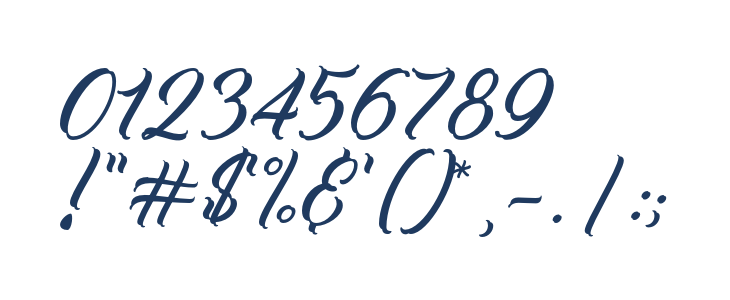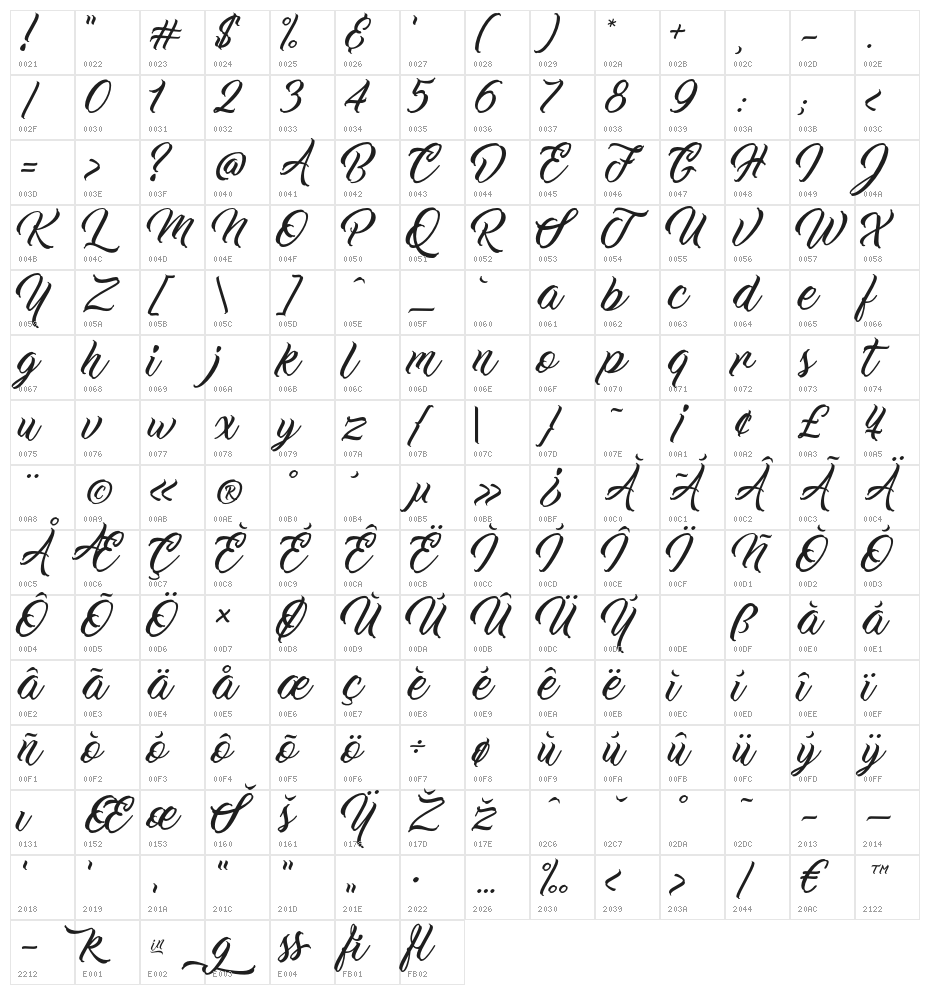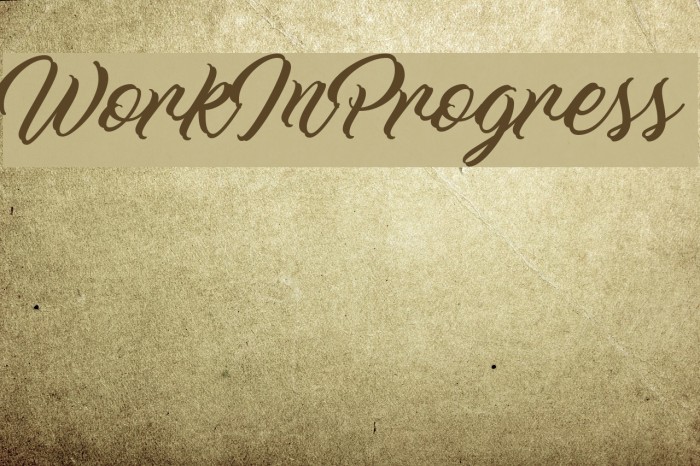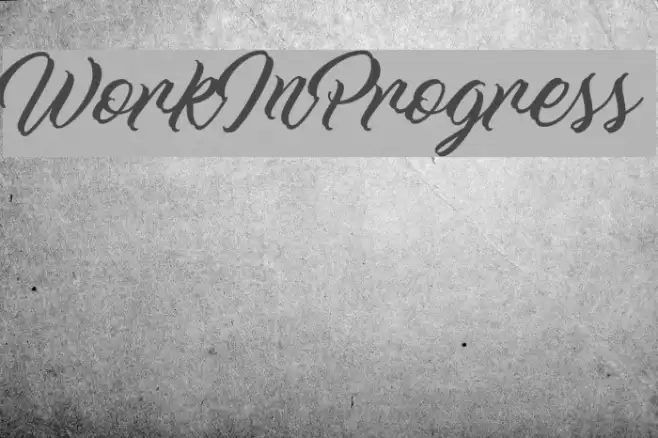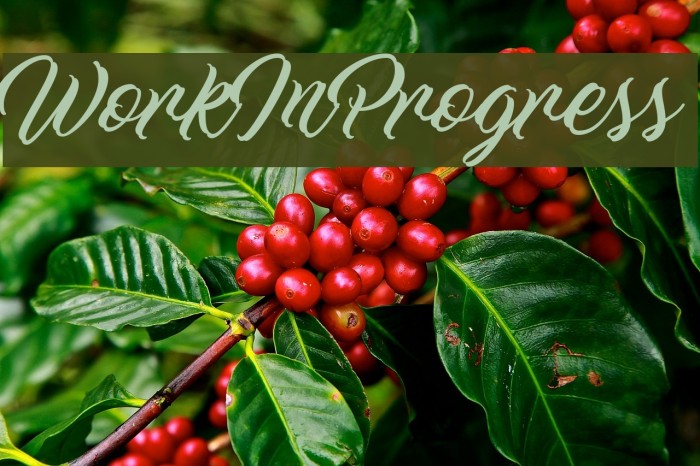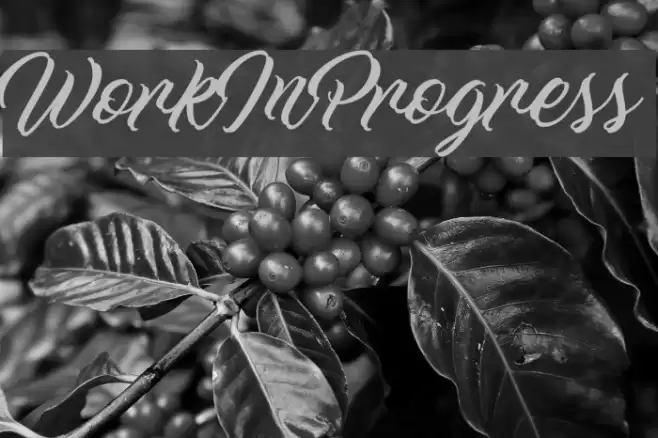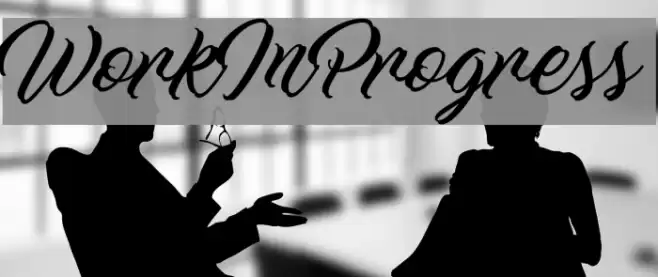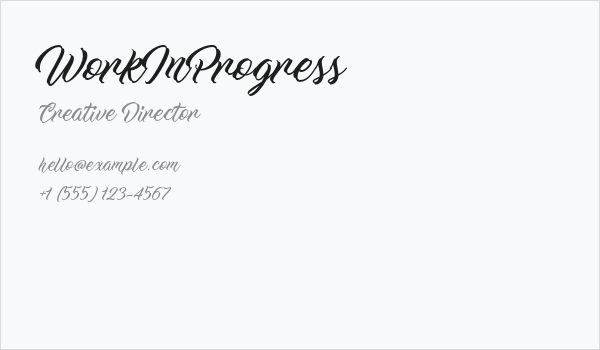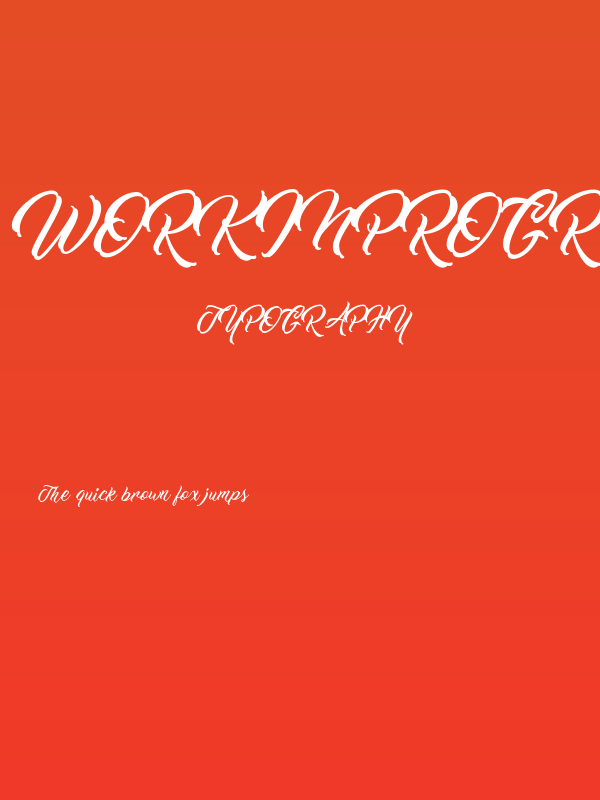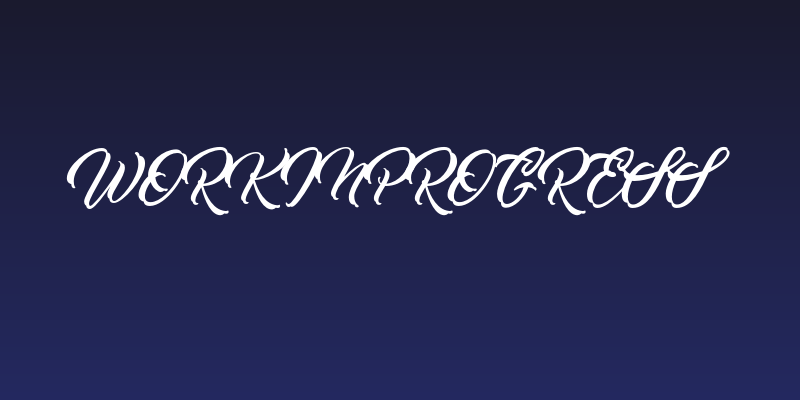
WorkInProgress Font
WorkInProgress Description
This font exudes a dynamic and energetic style with its fluid, cursive script. The characters are elegantly connected, creating a sense of movement and flow. The uppercase letters are bold and prominent, while the lowercase letters maintain a consistent rhythm. The numerals are distinct and easy to read, complementing the overall aesthetic. Special characters are crafted with the same attention to detail, ensuring a cohesive look across all glyphs. This font's design is both artistic and legible, making it suitable for a variety of creative applications.